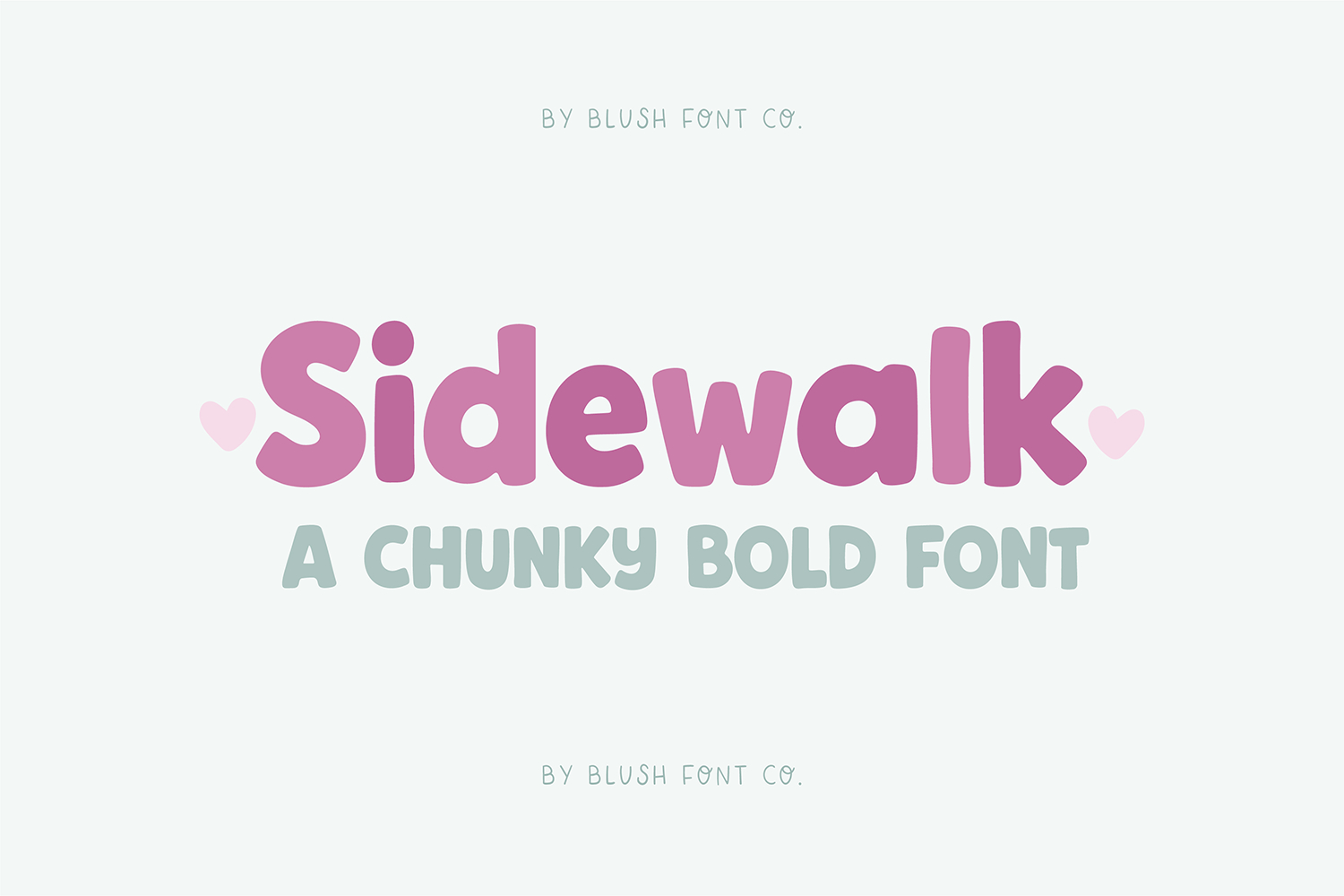
"Sidewalk" a chunky display font.
This font is a trendy handlettered display font that is perfect for social media or crafty projects. Use it for branding, crafts for decor, invitations, and more!